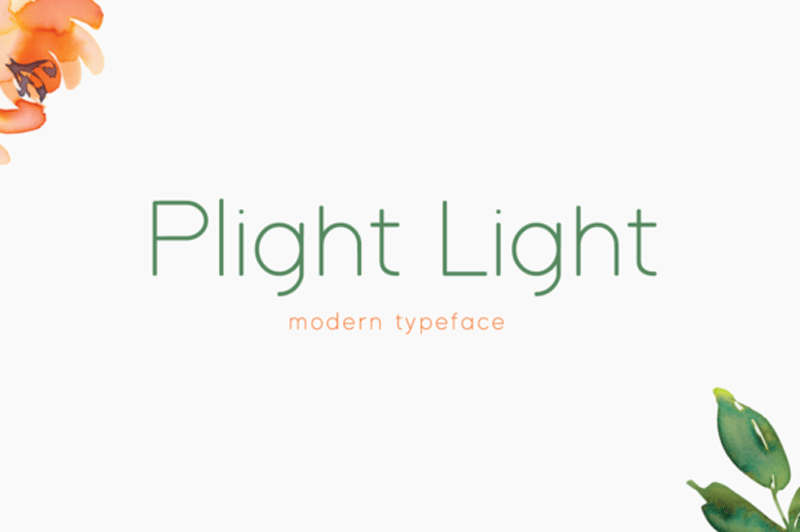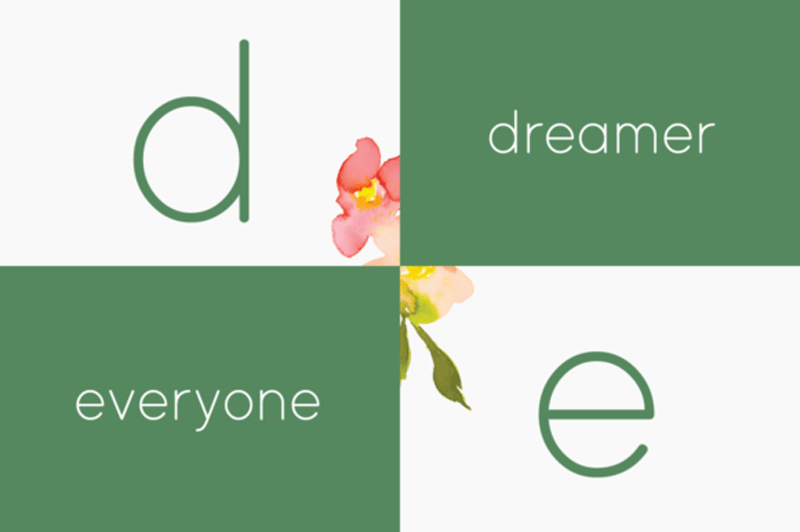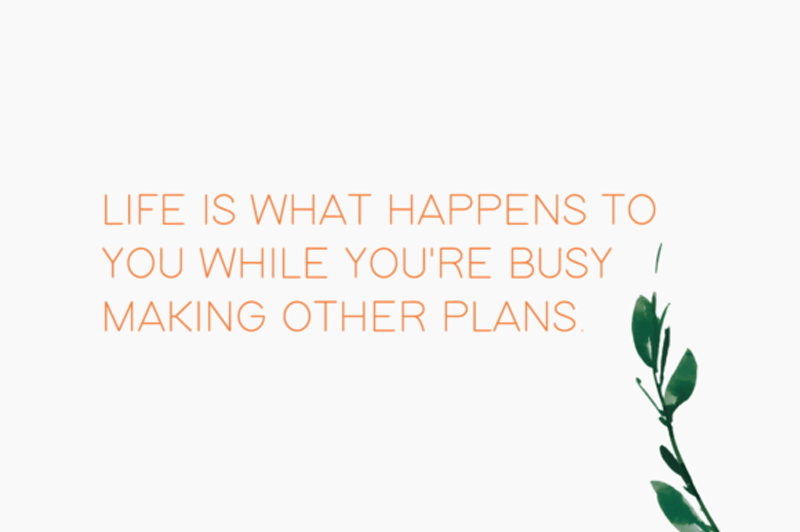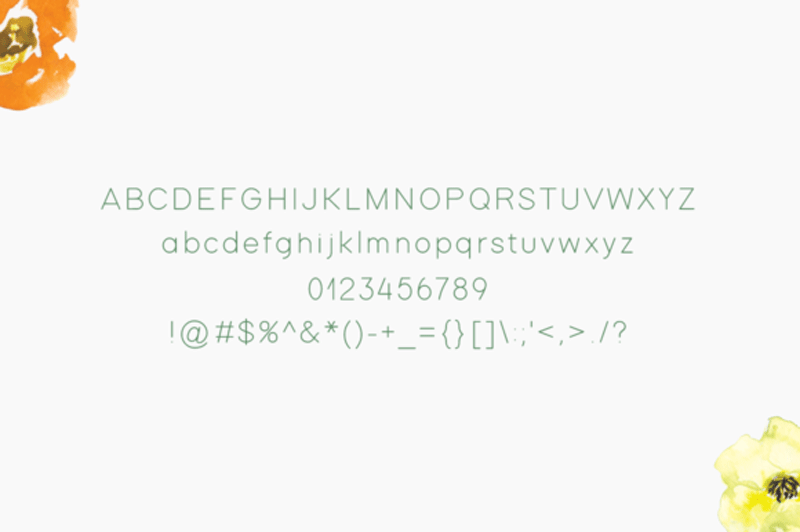
Plight Light Font
Plight Light feels equally charming and elegant. This display font will elevate a wide range of design projects to the highest level, be it branding, headings, wedding designs, invitations, signatures, logos, labels, and much more. Also checkout Oregano And Mint Font Family.